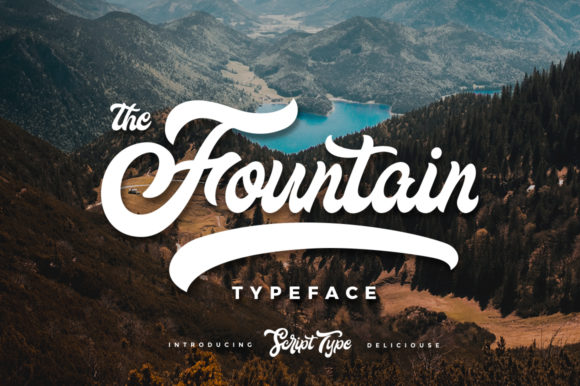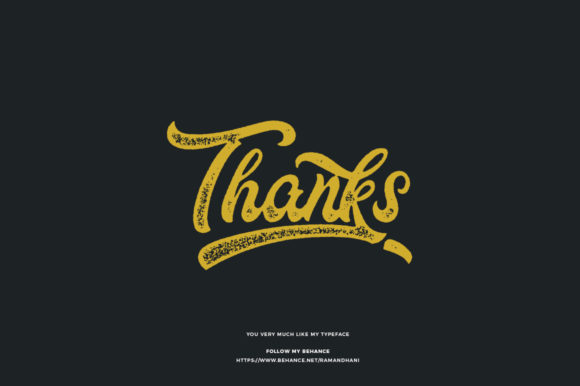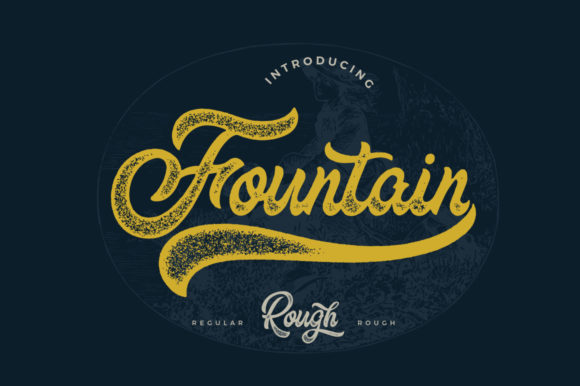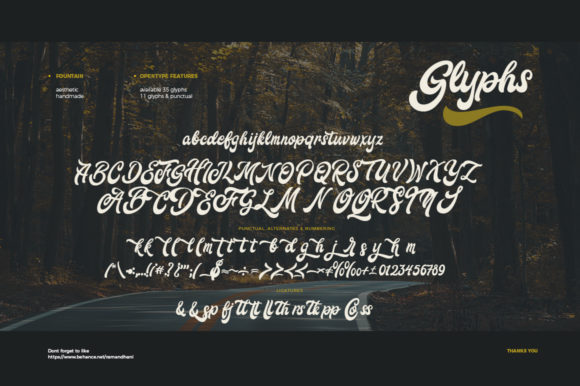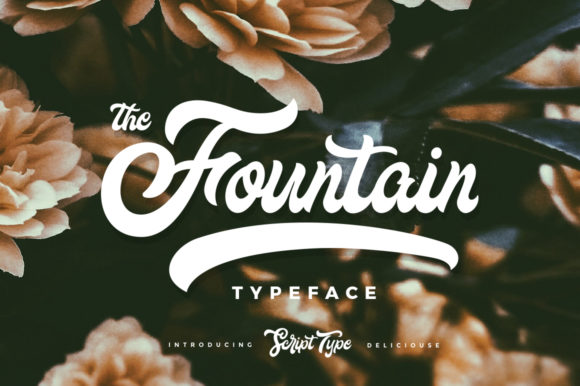
The Fountain Font
The Fountain is an incredibly distinct, delicate and timeless handwritten font. It looks stunning on wedding invitations, thank you cards, quotes, greeting cards, logos, business cards and every other design which needs a handwritten touch.